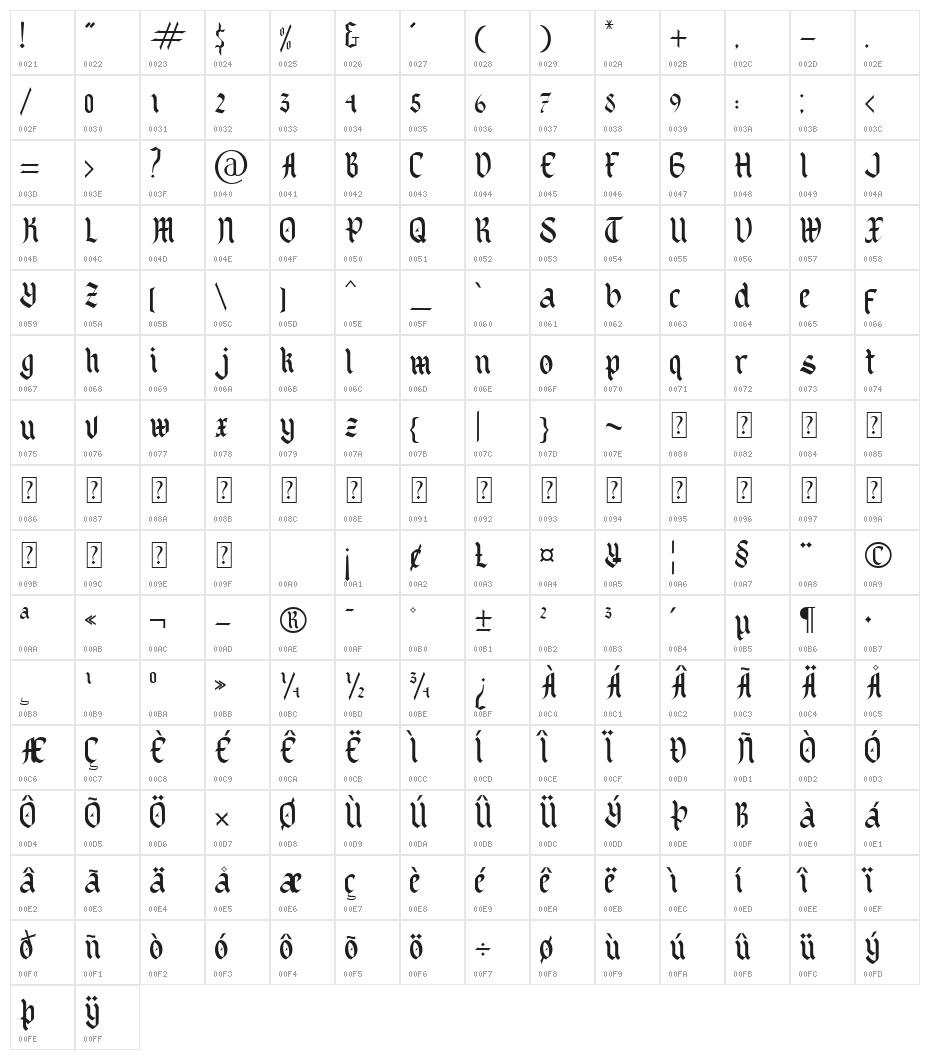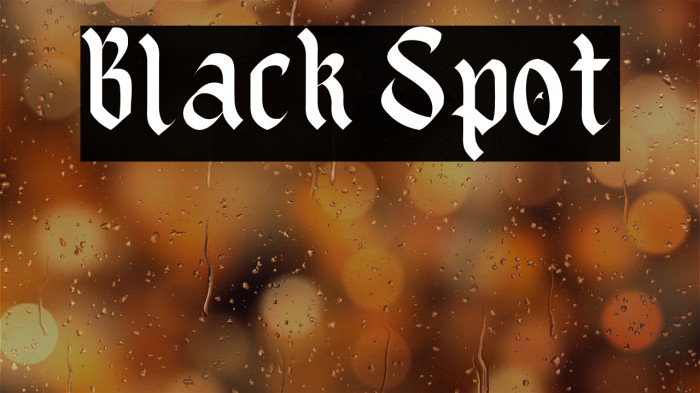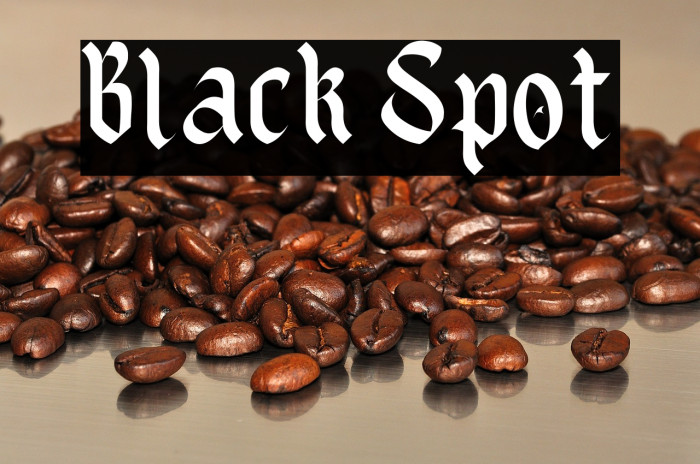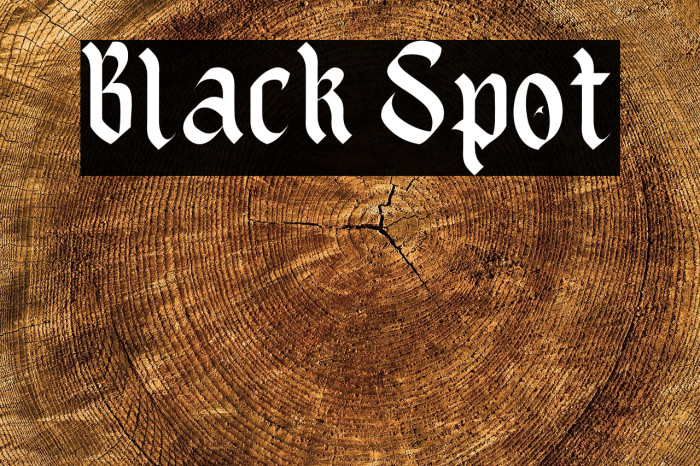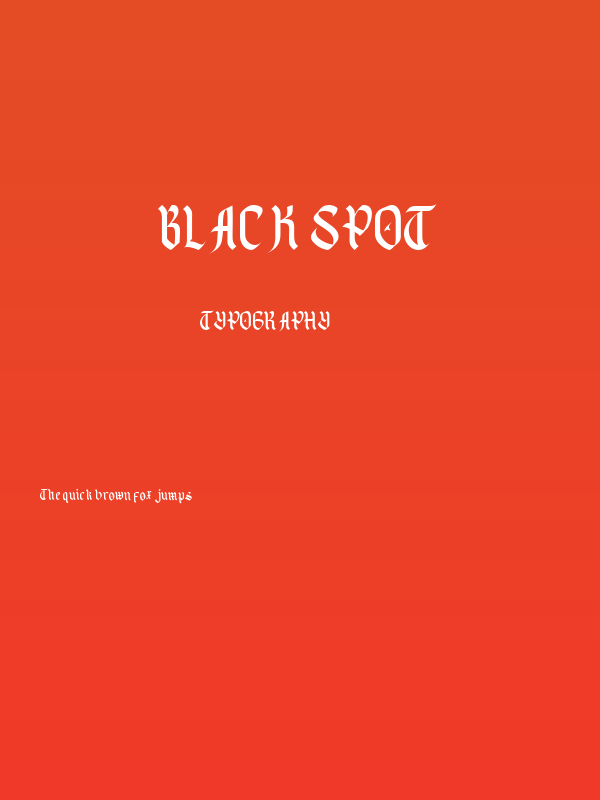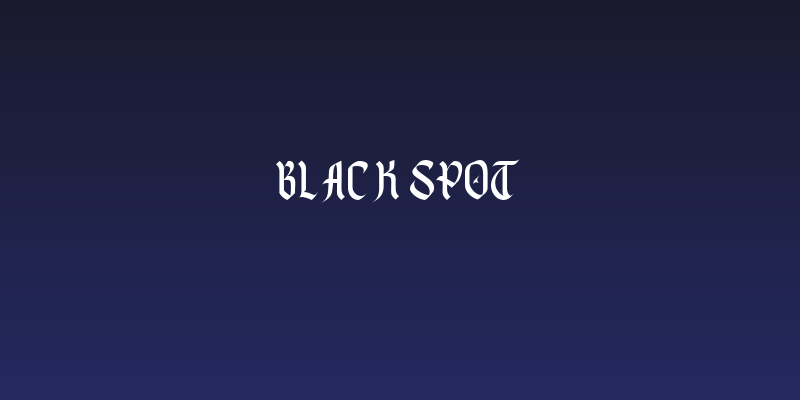
Black Spot Font
Black Spot Description
This font exhibits a traditional blackletter style, characterized by its intricate and ornate letterforms. The uppercase letters are bold and dramatic, with sharp angles and pointed serifs that give them a gothic appearance. The lowercase letters maintain the same level of detail, with a consistent stroke width that enhances readability while preserving the decorative nature. Numbers and special characters follow the same stylistic cues, ensuring a cohesive look across all glyphs. The font's historical aesthetic makes it suitable for projects that require a touch of elegance and formality.